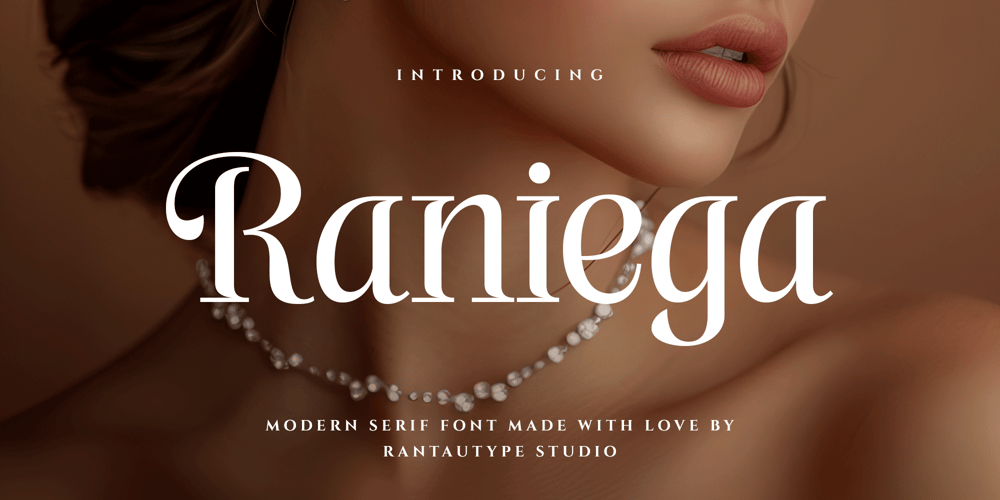
Raniega Font Family was designed by Yudi Pratama Chandra and published by RantauType. Raniega contains 2 styles and family package options. Raniega is modern serif font with a graceful soul. Raniega come with beautiful Uppercase shape and each character have horizontal accents that create a memorable impression.Raniega is a perfectly choice for any creative endeavor, creating elegant, modern, chic, lifestyle design such as logotype, title, cover, branding, invitations, wedding designs, display and magazine, social media posts, advertisements, printed quotes, product packaging, corporate brand, product designs, labels, photography, watermarks, special events and any other project with elegant touch.What you have: Standart Glyphs Numberial and Functional Ligature and alternate Works on PC & Mac Simple installations Accessible in Adobe Illustrator, Adobe Photoshop, Adobe InDesign, even work on Microsoft Word. Fonts include multilingual support for: Afrikaans, Albanian, Basque, Bemba, Bena, Breton, Catalan, Chiga, Cornish, Danish, Dutch, English, Estonian, Filipino, Finnish, French, Galician, German, Icelandic, Indonesian, Irish, Italian, Kinyarwanda, Luxembourgish, North, Norwegian, Portuguese, Romansh, Rombo, Rundi, Scottish, Gaelic, Sena, Shambala, Shona, Soga, Somali, Spanish, Swahili, Swedish, Swiss, German.Thank you for your purchase!Hope you enjoy with our font!